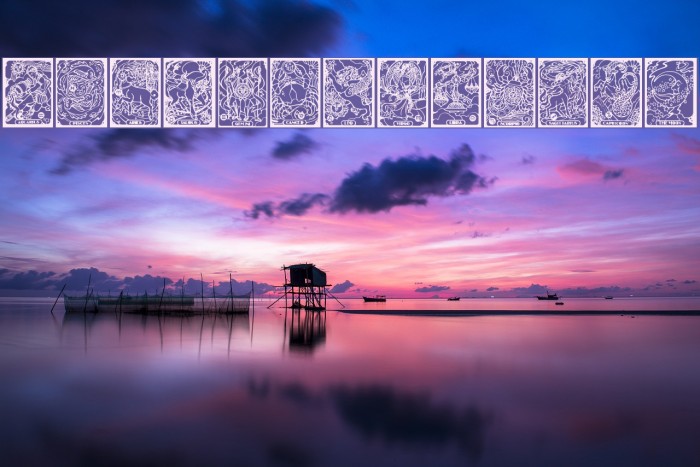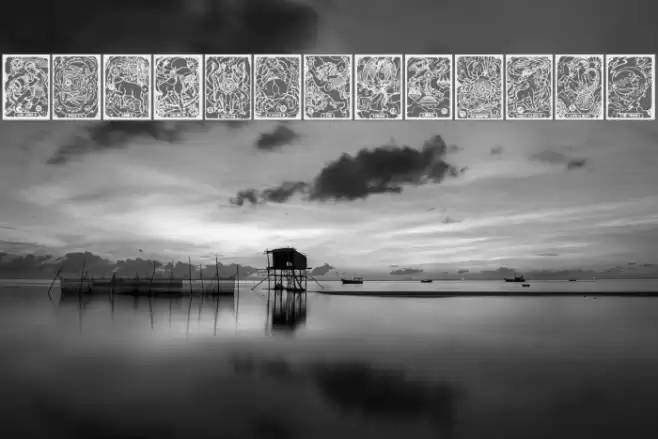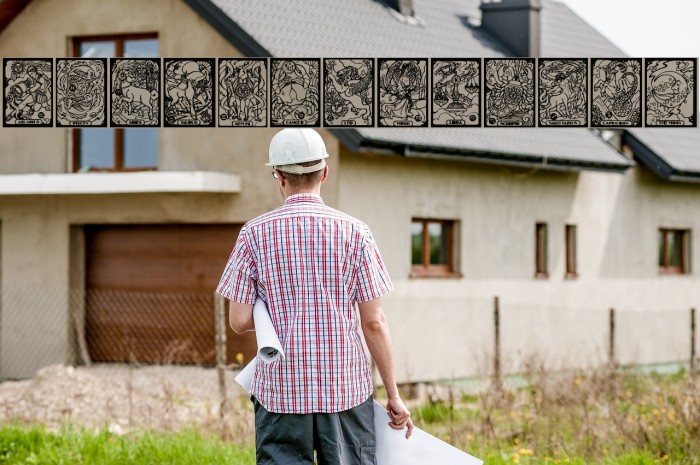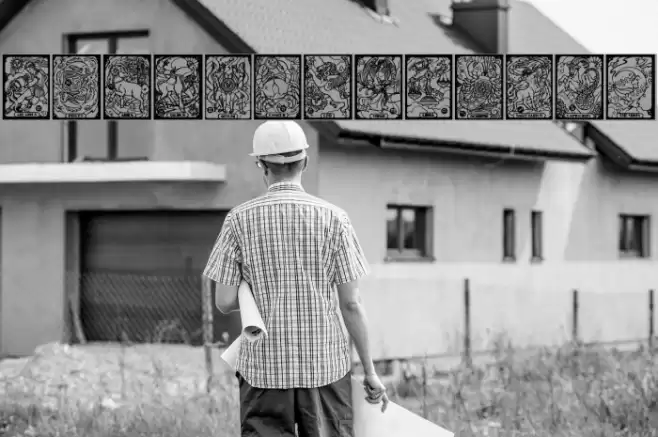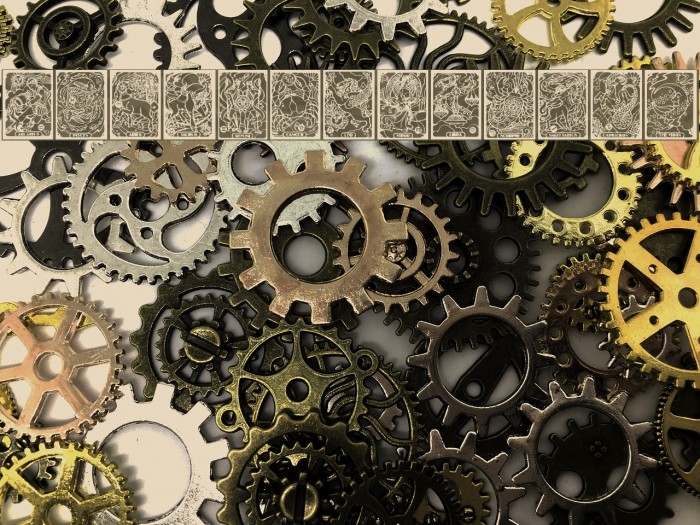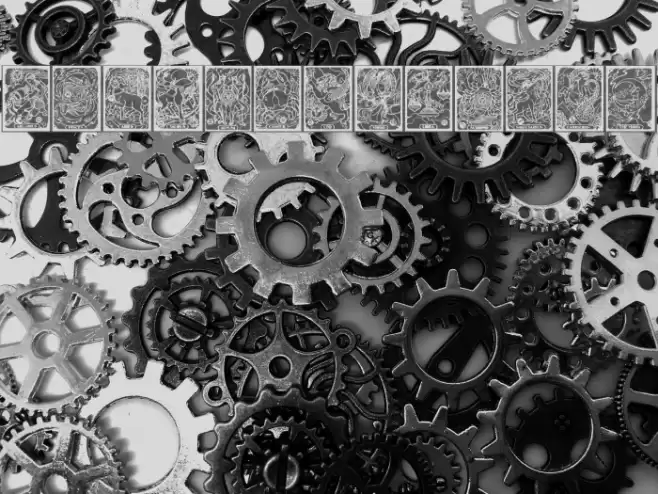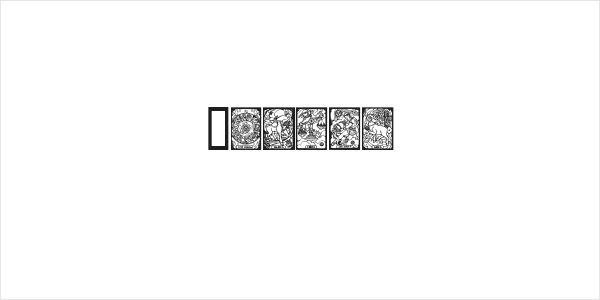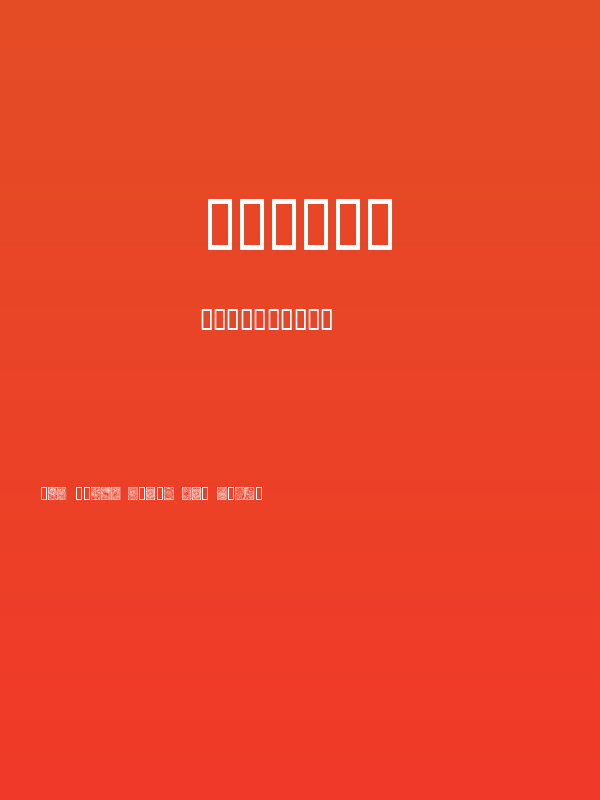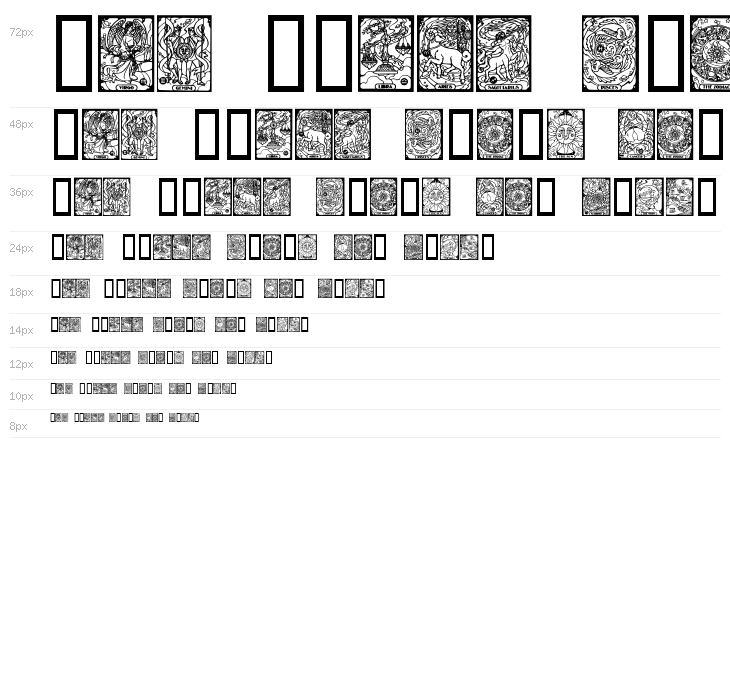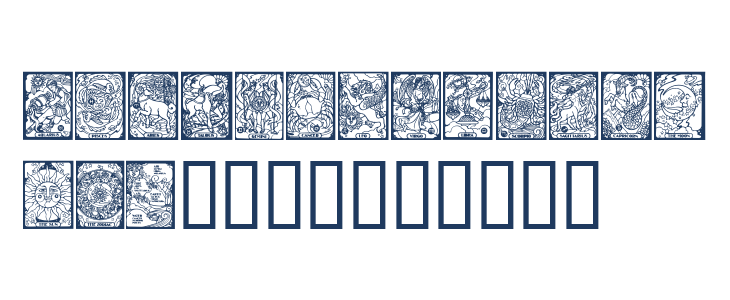
Zodiac Font
Zodiac Description
A decorative display set featuring intricate illustrations of zodiac signs and celestial motifs, each glyph resembling a detailed tarot or oracle card with ornate borders and symbolic imagery.
| Overall Style | Decorative, Mystical, Vintage |
| Use Case | Display, Posters, Cards, Branding |
| Proposed Projects | Astrology posters, tarot cards, themed invitations, mystical branding, book covers. |